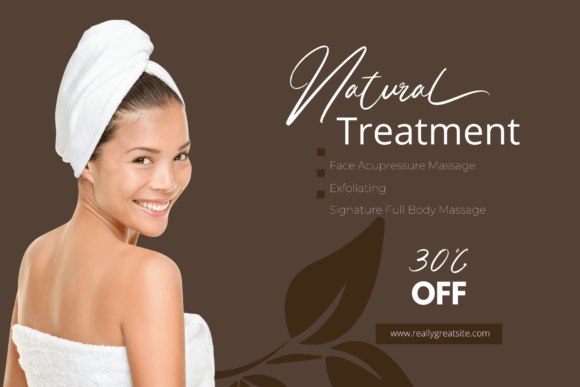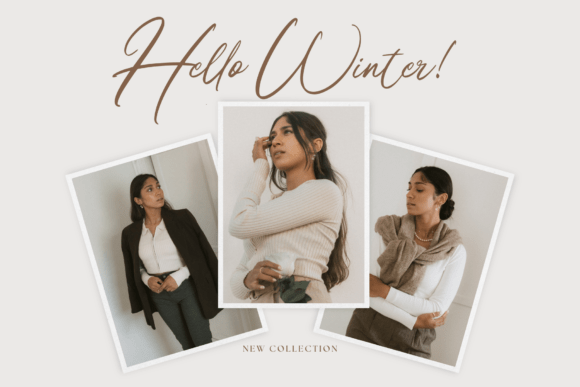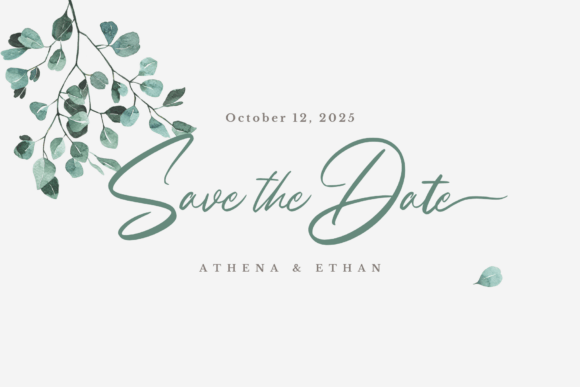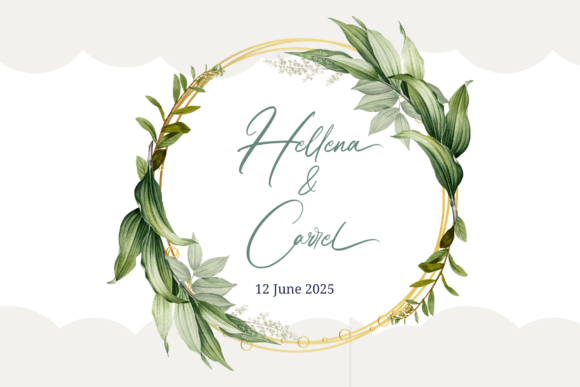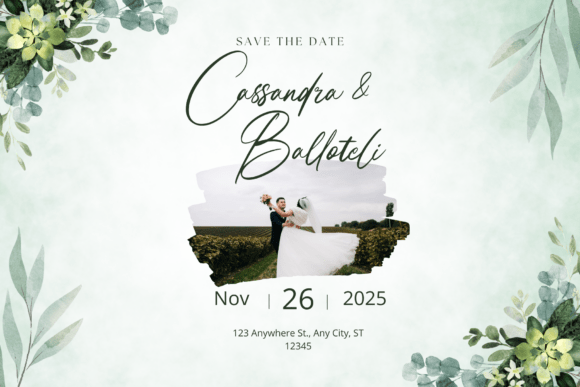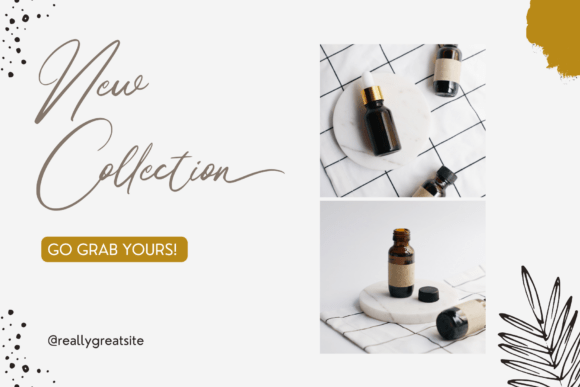
Introducing Claudya Font: The Epitome of Romanticism and Elegance
In the realm of typography, few fonts manage to capture the essence of romance and whimsy as effortlessly as Claudya Font. This enchanting font, with its deep roots in handwritten and signature styles, is a masterful blend of natural charm and sophisticated elegance. Imagine the tender feel of handwritten love letters, the magic of moonlit serenades, and the intimate whispers of sweet nothings – Claudya Font brings all these ethereal experiences to life through its meticulously crafted design.
The Unique Charm of Claudya Font
What sets Claudya apart from other fonts in the vast digital typography landscape is its exceptional attention to detail, particularly in its swash, alternate, and ligature features. These elements are not merely added as afterthoughts; instead, they are intricately woven into the fabric of the font, enhancing its expressive nature. This thoughtful design allows Claudya to resonate deeply with the emotionality of any design project it becomes a part of.
Exploring the Features of Claudya Font
- Swash Features: The swashes in Claudya are designed to add a flourish of elegance and whimsy to your text. Perfect for headings, invitations, and any piece of design that seeks to make a statement, these swashes bring a dynamic and fluid feel that can transform ordinary words into poetic expressions.
- Alternate Characters: Versatility is key with Claudya’s alternate characters. These variations allow designers to play with the text’s appearance, creating a unique visual identity for their projects. Whether you’re crafting a vintage-inspired poster or a modern brand logo, Claudya’s alternates ensure your design stands out.
- Ligature Features: The ligatures in Claudya add another layer of sophistication and fluidity to the font. By combining letters in aesthetically pleasing ways, ligatures eliminate awkward spacing and create a harmonious flow, making the text not just readable but a visual treat.
The Versatility of Claudya Font
One of Claudya’s most compelling attributes is its unmatched versatility. This font can effortlessly adapt to a wide array of design needs, from romantic and whimsical to elegant and sophisticated. Need a font for wedding invitations, romantic quotations, or brand logos that exude a touch of personal warmth? Claudya is the perfect choice. Its design aesthetics are so captivating that it can elevate any project, adding a breath of fresh air and a dash of natural elegance.
Applications of Claudya Font
The applications of Claudya Font are as varied as they are imaginative. Designers and crafters can use Claudya in:
- Wedding and Event Materials: Invitations, thank you cards, and event programs take on a romantic flair with Claudya.
- Branding and Logos: Add a personal touch to your brand’s identity with a logo that speaks directly to the heart.
- Packaging: Stand out on store shelves with product packaging that exudes elegance and charm.
- Digital Content: Enhance your website, blog, or social media graphics with a font that tells a story of romance and beauty.
Claudya Font is more than just a typeface; it’s an experience. It’s a journey back to the simplicity and beauty of handwritten expressions, yet it’s firmly rooted in the digital age with its comprehensive set of features. Whether you’re a designer looking for that special font to bring your project to life or a crafter seeking to add a personal touch to your creations, Claudya is sure to sweep you off your feet. Its effortlessly captivating design aesthetics, combined with its versatility and expressive features, make Claudya an enchanting addition to any design toolkit. Let Claudya be the voice of your brand, the whisper in your love letters, or the elegant script of your next big project.